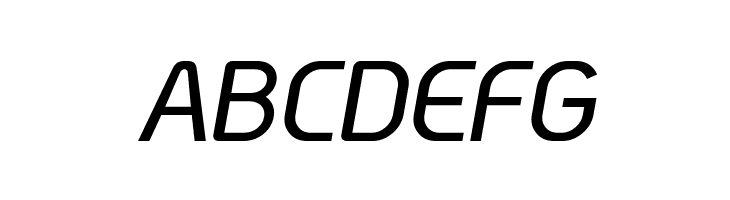
A bold, italicized font with a 3D outline and shadow effect.
A bold, playful, and cartoonish font with a three-dimensional, hand-drawn style.
A modern, geometric sans-serif font with clean lines and excellent readability.
A modern, italic sans-serif font with clean lines and a dynamic slant.
A modern, narrow sans-serif font with clean lines and consistent stroke width.
A sleek, narrow, and italicized modern font with a professional aesthetic.
A modern, geometric font with a monolinear and interconnected style.
A modern, playful font with rounded, interconnected characters.
A bold, italic script font with a modern and dynamic style.
A modern, ultra-lightweight font with a minimalistic and geometric design.
A delicate, flowing font with elongated, slanted characters and a modern, airy feel.
A modern, geometric font with thin, continuous strokes and a playful yet sophisticated style.
A light, italicized font with elegant, flowing characters and generous spacing.
A modern, elegant font with slender, italicized characters and smooth strokes.
A modern, decorative font with semi-bold weight and looped terminals.
A semi-bold italic font with elongated, fluid characters and medium contrast.
A bold, geometric font with a modern and industrial aesthetic.
A modern, italic font with sleek, dynamic lines and balanced proportions.
A modern sans-serif font with clean lines and balanced proportions.
A modern, italicized font with medium contrast and a sleek, condensed style.
A modern, condensed sans-serif font with clean lines and uniform strokes.
Bold, italic, and dynamic with a modern, assertive style.
A bold, geometric font with strong, uniform letterforms.
A sleek, modern italic font with a slightly condensed style and elegant slant.
A modern, condensed sans-serif font with a clean and professional look.
A modern, italic, and slightly condensed font with medium contrast.
A modern, clean sans-serif font with a slightly condensed style.
A bold, modern font with strong, impactful characters.
A bold, italicized font with a dynamic and condensed style.
A bold, italic, and condensed font with a modern and dynamic style.
A bold, italicized font with high contrast and a dynamic, condensed style.